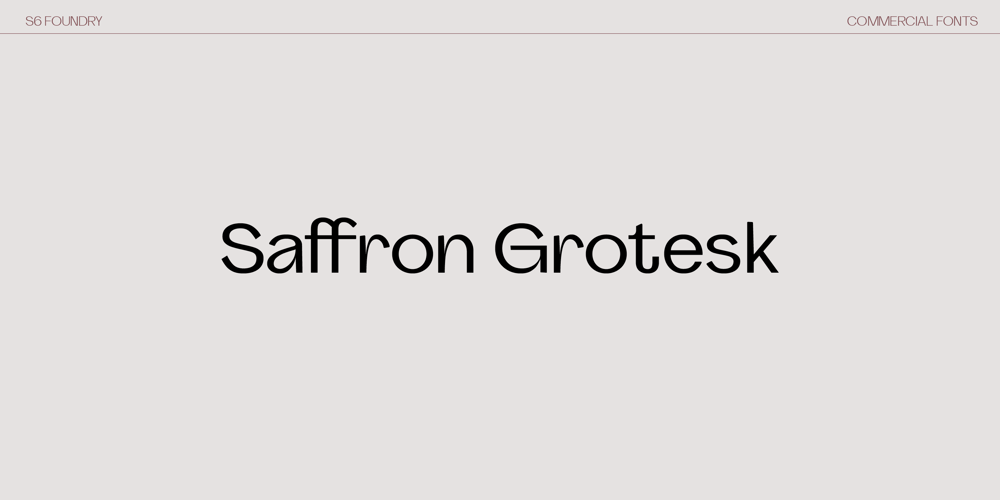
Saffron Grotesk Font Family was designed by Paul Henry Robb and published by S6 Foundry. Saffron Grotesk contains 12 styles and family package options. Saffron is an elegant contemporary neo-grotesque sans-serif typeface with strong stylistic geometric contrasts, drawing on the aesthetics and the typographic standards of Swiss modernism. The distinctive wide-open stance was designed to give the right visual consistency for branding and communications. This authentic and original typeface represents the shifting contemporary aesthetics. Saffron is perfectly suited for headlines, large-format prints, brand identities, social media, advertising, editorial design, posters, magazines, logos, headings, and more.The Saffron family includes six weights, with their relative italics with over 700 glyphs and multi-language support.